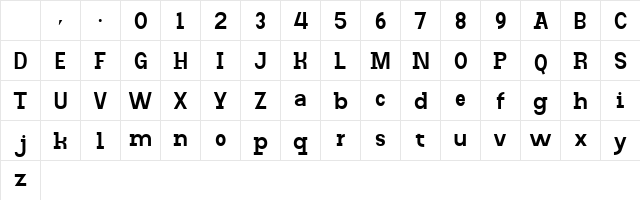
Complete Rofane Mono SemBd Regular glyph index. Displaying only characters natively supported by Rofane Mono SemBd Regular font.
Rofane Mono SemBd uses fixed-width spacing throughout, giving it the structured, systematic character associated with coding environments and technical documentation.
Pro Tip: Use Rofane Mono SemBd with slightly increased line-height for extended reading - fixed-width spacing can feel dense in longer passages without extra breathing room.